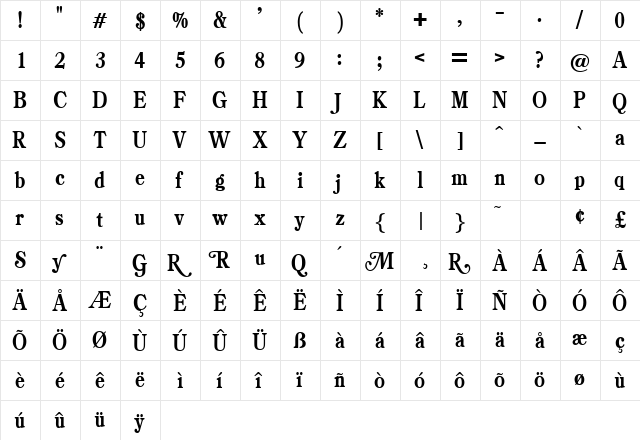
Booster Regular
Design Context for Booster Typeface
Booster offers clean, dependable letterforms without strong stylistic allegiance, making it a practical choice for designers who need flexibility.
Pro Tip: Use Booster in both headline and body roles to test its range before committing to a single application.